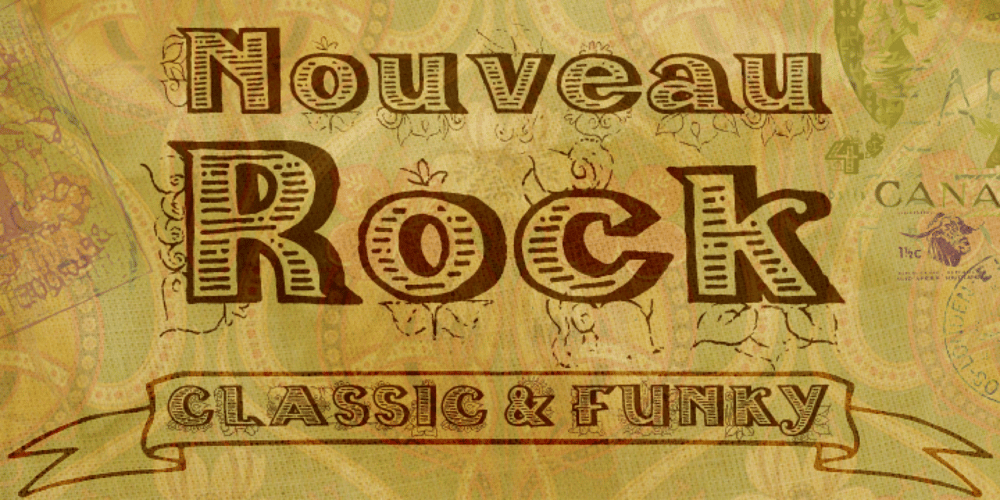
Nouveau Rock
Nouveau Rock font
Nouveau Rock Font Family was designed by Luke William Turvey and published by Okaycat. Nouveau Rock contains 1 styles and family package options. Nouveau Rock creates a blend of old & new combined. Classic, yet funky. This font has a rough-cut elegance—surprisingly nostalgic. However, the influences of urban folk art also bring a modern familiarity. Nouveau Rock is extended, containing West European diacritics & ligatures, making it also suitable for multilingual environments & publications.